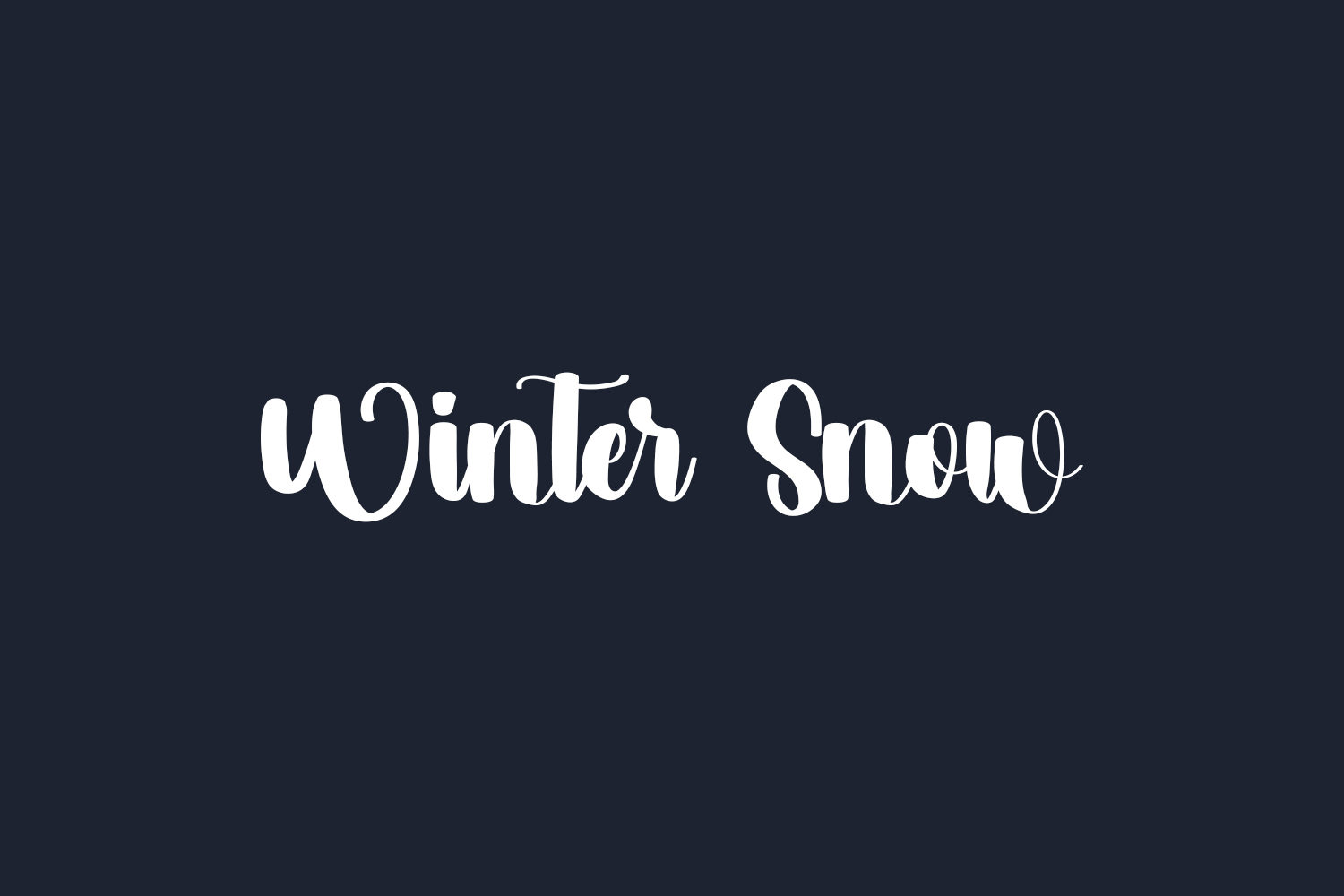
Winter Snow Free Font is a stylish handwritten font with a contemporary atmosphere and impeccable form, inspired by timeless classic calligraphy. Balanced and varied, this font was designed to enhance the beauty of your projects. Winter Snow Free Font was designed by Inermedia Studio and is free for personal use only. Please purchase the full version for commercial use.
Designed by Inermedia Studio